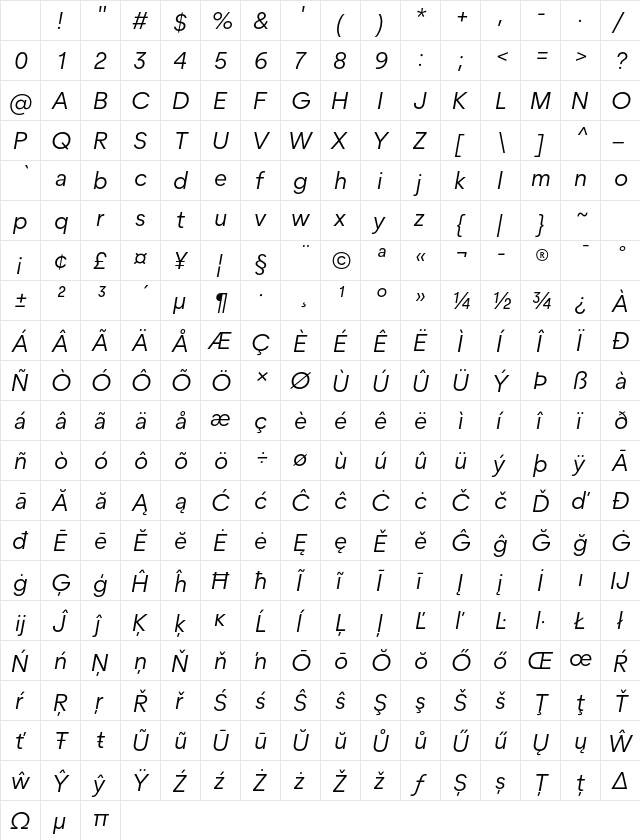
Complete Protofo Italic glyph index. Displaying only characters natively supported by Protofo Italic font.
Protofo is a composed and adaptable typeface that performs quietly and consistently across a wide range of design contexts. The slanted form adds forward momentum and visual energy.
Pro Tip: Use Protofo for emphasis, pull quotes, and subheadings where its slanted energy can add rhythm to the layout.